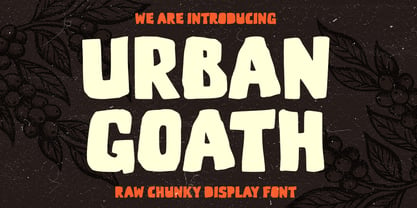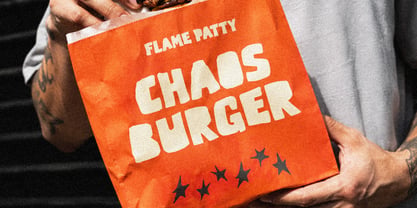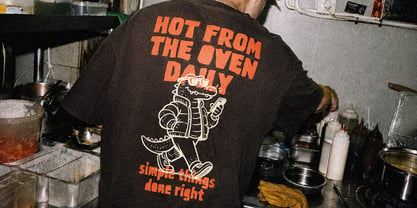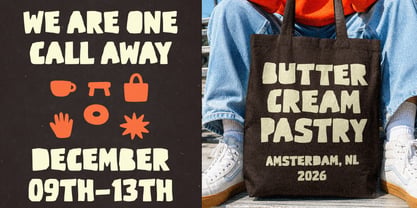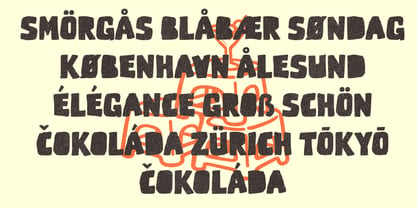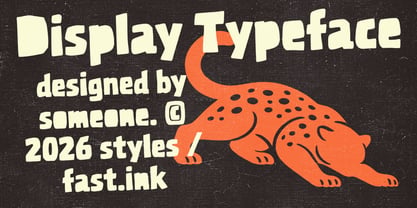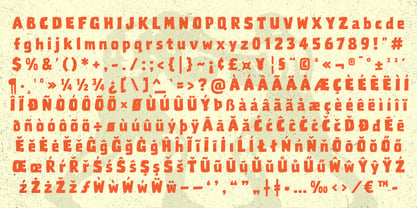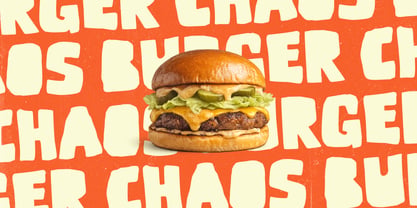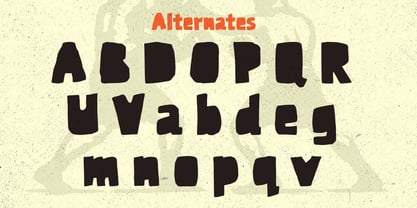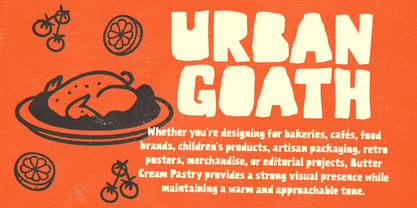
Urban Goath
by RahagitaType
The Urban Goath Font Family was designed by Setiadi Rahagita and published by RahagitaType. Urban Goath contains 1 styles. More about this family
Urban Goath is a raw, chunky bold display typeface that brings the energy of hand-stamped letterpress printing into the digital age. Its thick, irregular strokes and deliberately gritty texture give every headline a visceral, authentic character — the kind that makes people stop scrolling and pay attention. Whether slapped across a burger wrapper, screenprinted on a streetwear tee, or dominating a retro poster, Urban Goath commands attention without trying too hard.
Designed for creatives who want type that feels made by hand, not generated by machine, Urban Goath walks the line between bold and brutal — powerful enough for large-scale display, characterful enough to carry an entire brand identity.